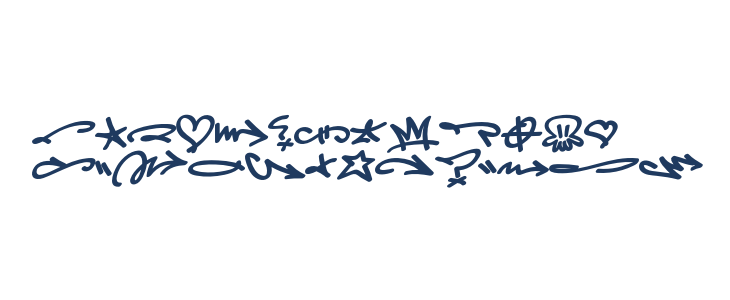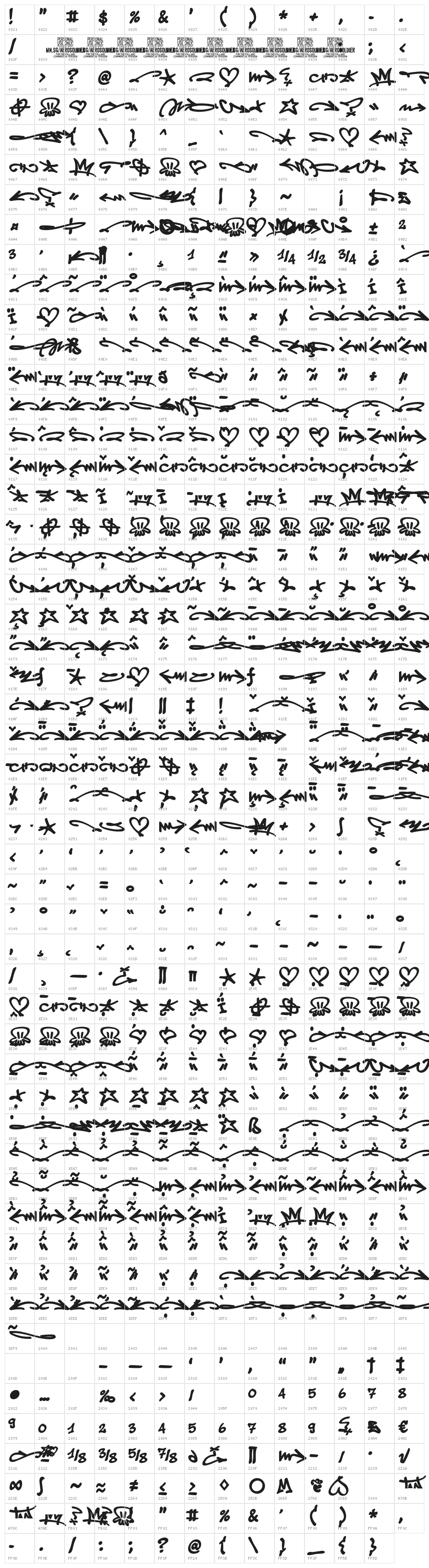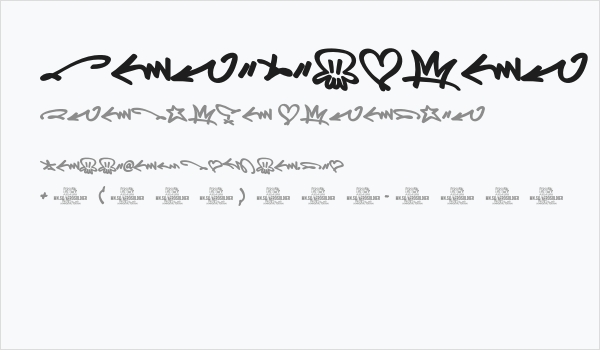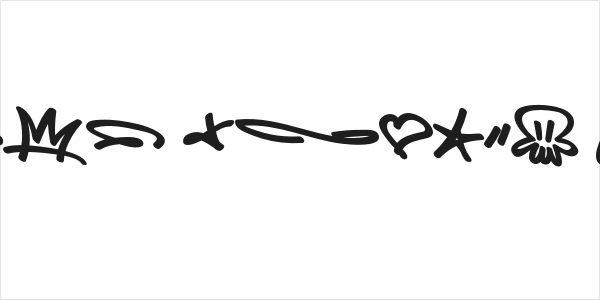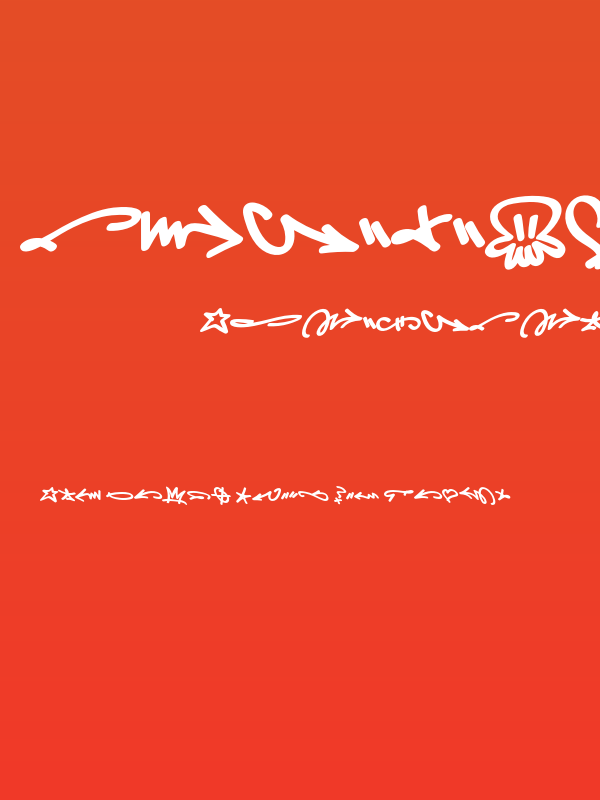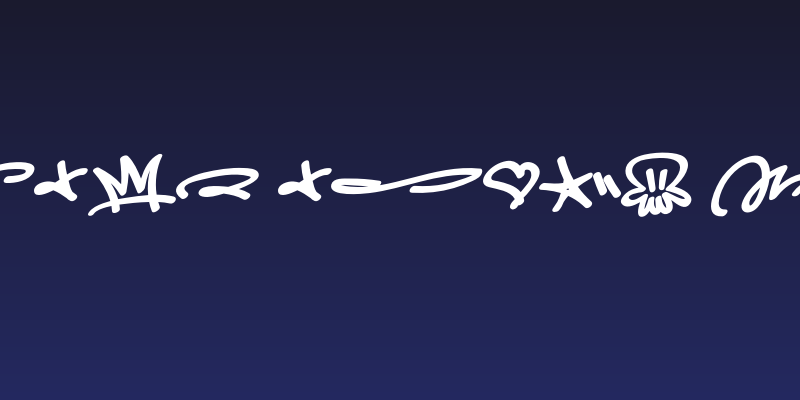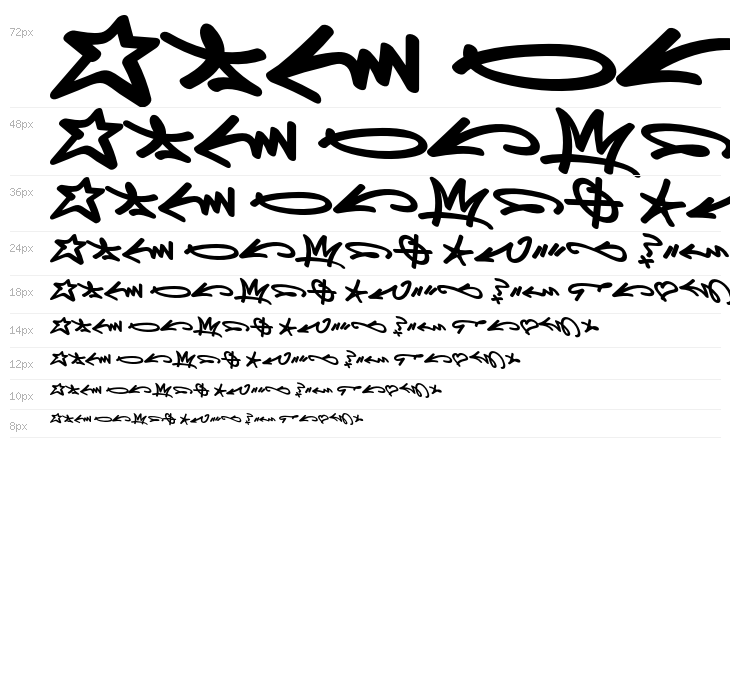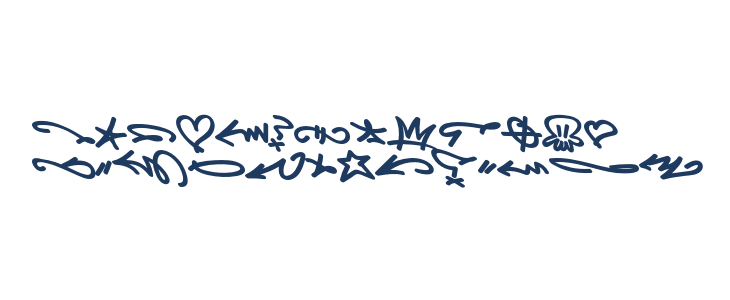
Aerosoldier Basic Symbol PERS Regular Font
Aerosoldier Basic Symbol PERS Regular Description
A highly decorative, graffiti-inspired symbol font featuring bold, hand-drawn shapes, arrows, hearts, stars, and abstract forms. The characters are playful and expressive, with thick strokes and a dynamic, energetic style.
| Overall Style | Decorative, Urban, Graffiti |
| Use Case | Logos, Headlines, Posters, Decorative elements |
| Proposed Projects | Street art posters, event flyers, album covers, urban branding, youth-oriented graphics. |